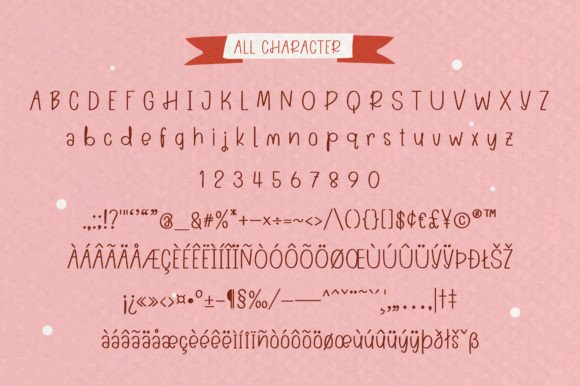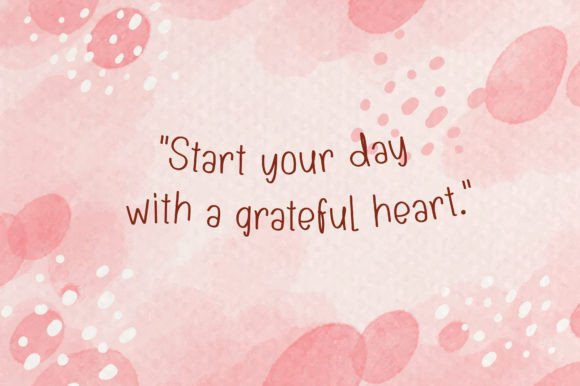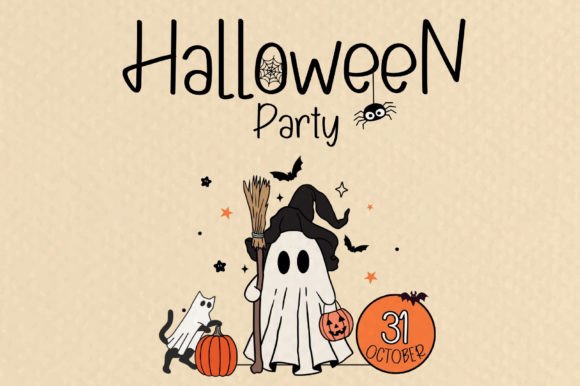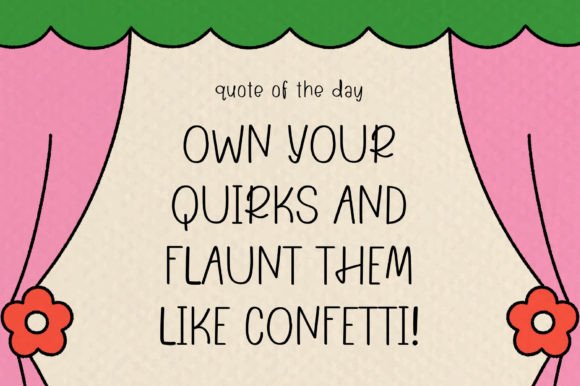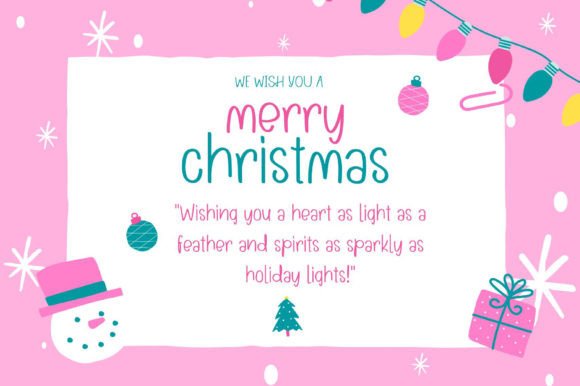
Cookies and Creativity: Unwrapping the Delightful Cookie Crunch Font
Imagine adding a pinch of magic to your digital creations with a font that embodies the essence of charm, simplicity, and a dash of whimsy. Say hello to the CookieCrunch Font, a perky handcrafted typeface designed to bring a smile to your face and a creative spark to your projects. In this article, we’ll dive into the delightful world of CookieCrunch, exploring its features, benefits, and uses that make it a must-have for designers, crafters, and anyone looking to add a personal touch to their digital notes and creations.
The Birth of a Font: Designed with Delight
The CookieCrunch Font was carefully crafted to offer a fresh and exciting way to add a handwritten touch to digital note-taking, study notes, and collage notes. Its clean-lined, sans serif aesthetic ensures that the font is easy on the eye, making it perfect for reading and writing. But what truly sets CookieCrunch apart is its unique blend of simplicity and playfulness, making it an excellent choice for those seeking to add a bit of personality to their digital creations.
A Spark of Creativity: More Than Just a Font
CookieCrunch is more than just a font – it’s a tool for self-expression and creativity. Its handcrafted nature gives it a personal and approachable feel, making it ideal for a wide range of projects, from digital art and craft projects to planners, journals, and even social media graphics. With CookieCrunch, you can add a touch of warmth and personality to your digital creations, setting them apart from the ordinary and making them truly special.
Key Features of CookieCrunch Font
- Handcrafted with love: Each letter has been carefully designed to bring a touch of whimsy and charm to your projects.
- Clean-lined and easy to read: The sans serif aesthetic ensures that the font is clear and readable, even at smaller sizes.
- Versatile: Perfect for digital note-taking, study notes, collage notes, and a wide range of creative projects.
- Adorable and playful: Adds a dash of personality and fun to any project.
Who Can Benefit from CookieCrunch Font?
The CookieCrunch Font is a versatile tool that can benefit a wide range of individuals and professionals. Here are a few examples:
- Digital Artists and Crafters: Add a personal touch to your digital art, planners, and journals.
- Students: Make your digital study notes and collage notes more engaging and fun to read.
- Social Media Enthusiasts: Use CookieCrunch to create eye-catching and personality-filled social media graphics.
- Graphic Designers: Offer CookieCrunch as an option to clients looking for a unique and playful font for their branding projects.
The CookieCrunch Font is a delightful addition to any creative toolkit, offering a unique blend of charm, simplicity, and playfulness. Whether you’re a designer, crafter, student, or simply someone looking to add a personal touch to your digital creations, CookieCrunch is sure to inspire and delight. So why wait? Dive into the whimsical world of CookieCrunch and discover a font that’s more than just a means of communication – it’s a way to express yourself and bring a little more joy into your digital life.